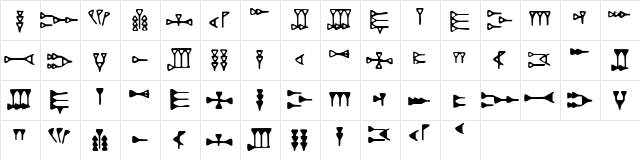
DH Ugaritic Font Preview
DH Ugaritic DH Ugaritic
Design Context for DH Ugaritic Typeface
DH Ugaritic is a composed and adaptable typeface that performs quietly and consistently across a wide range of design contexts.